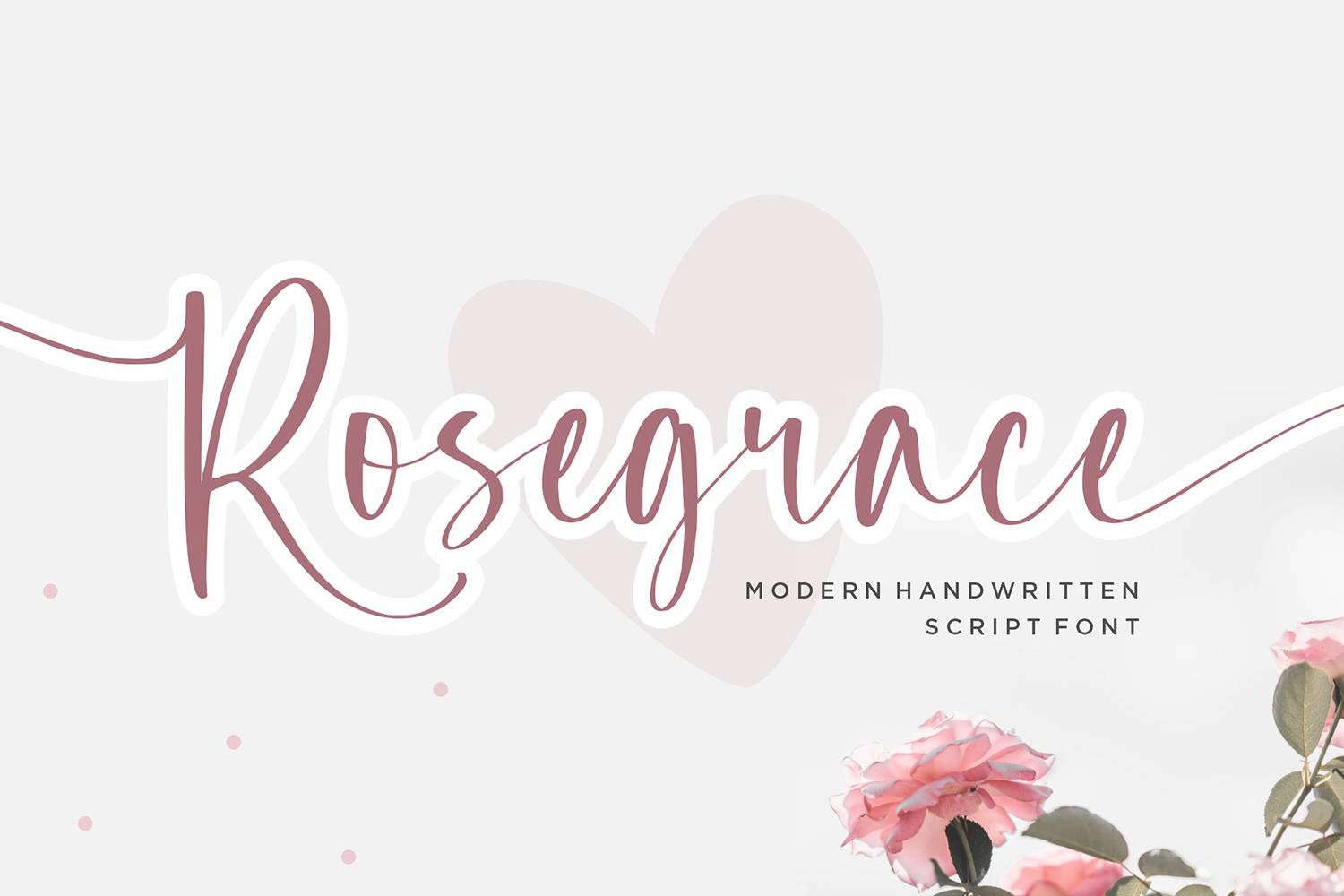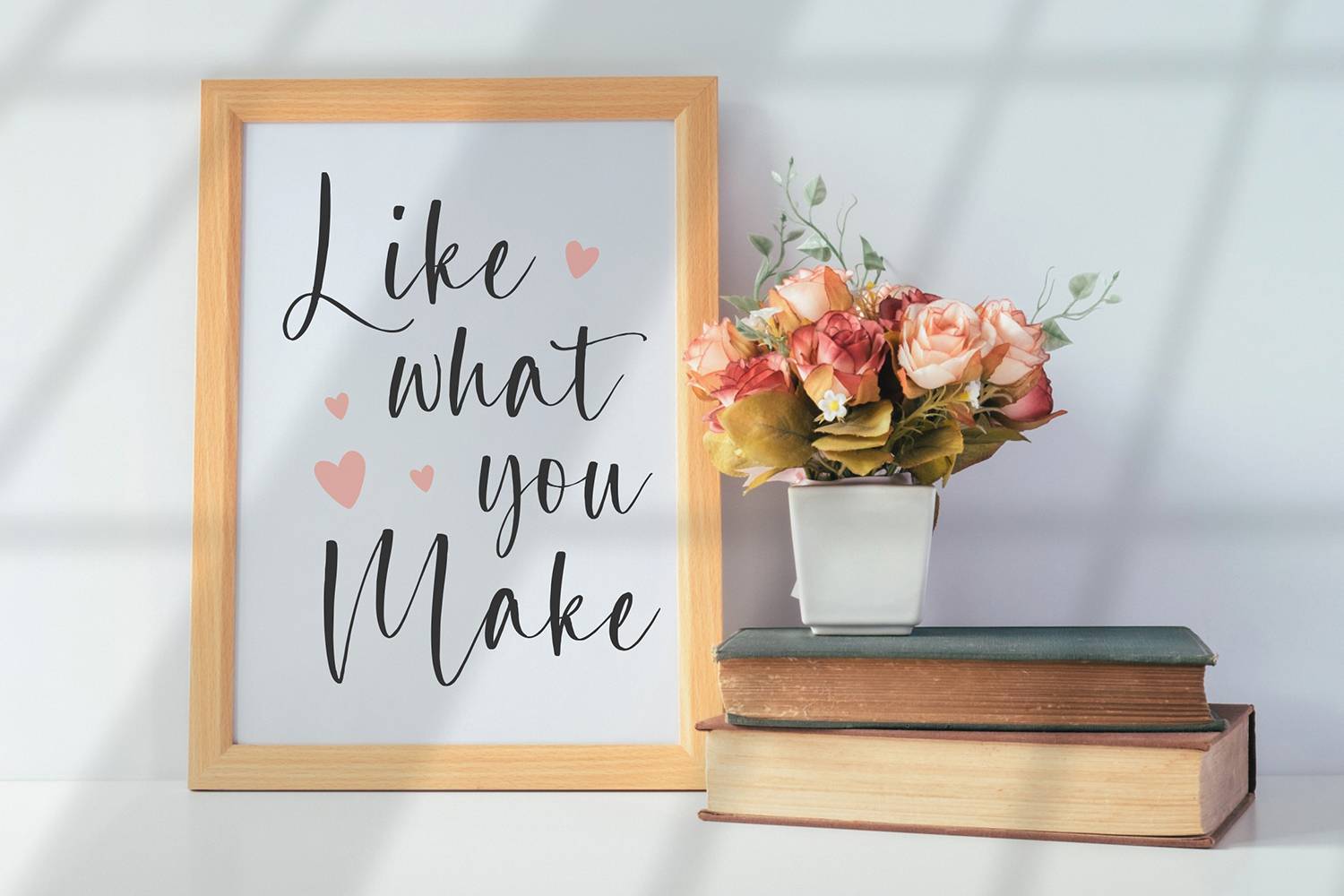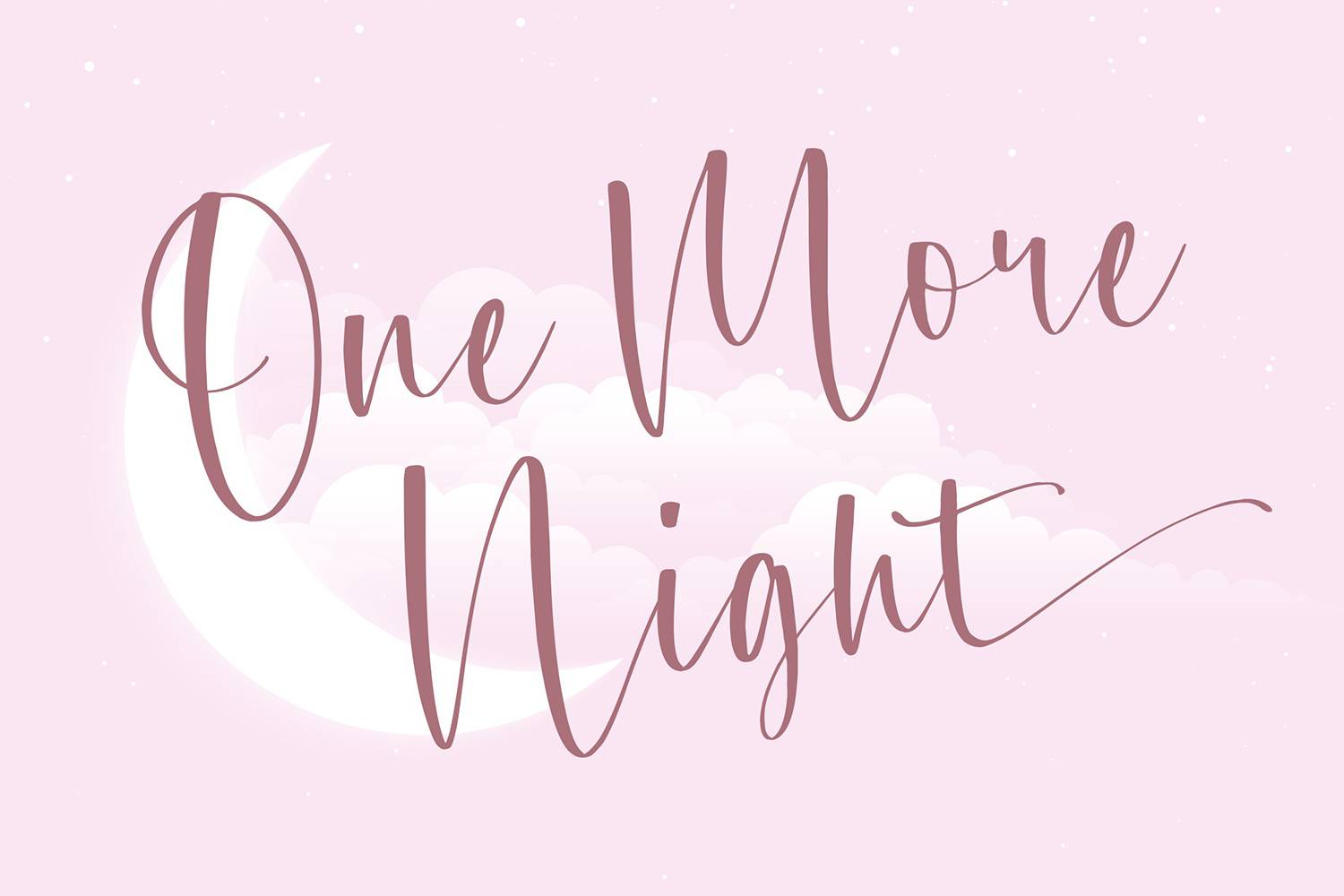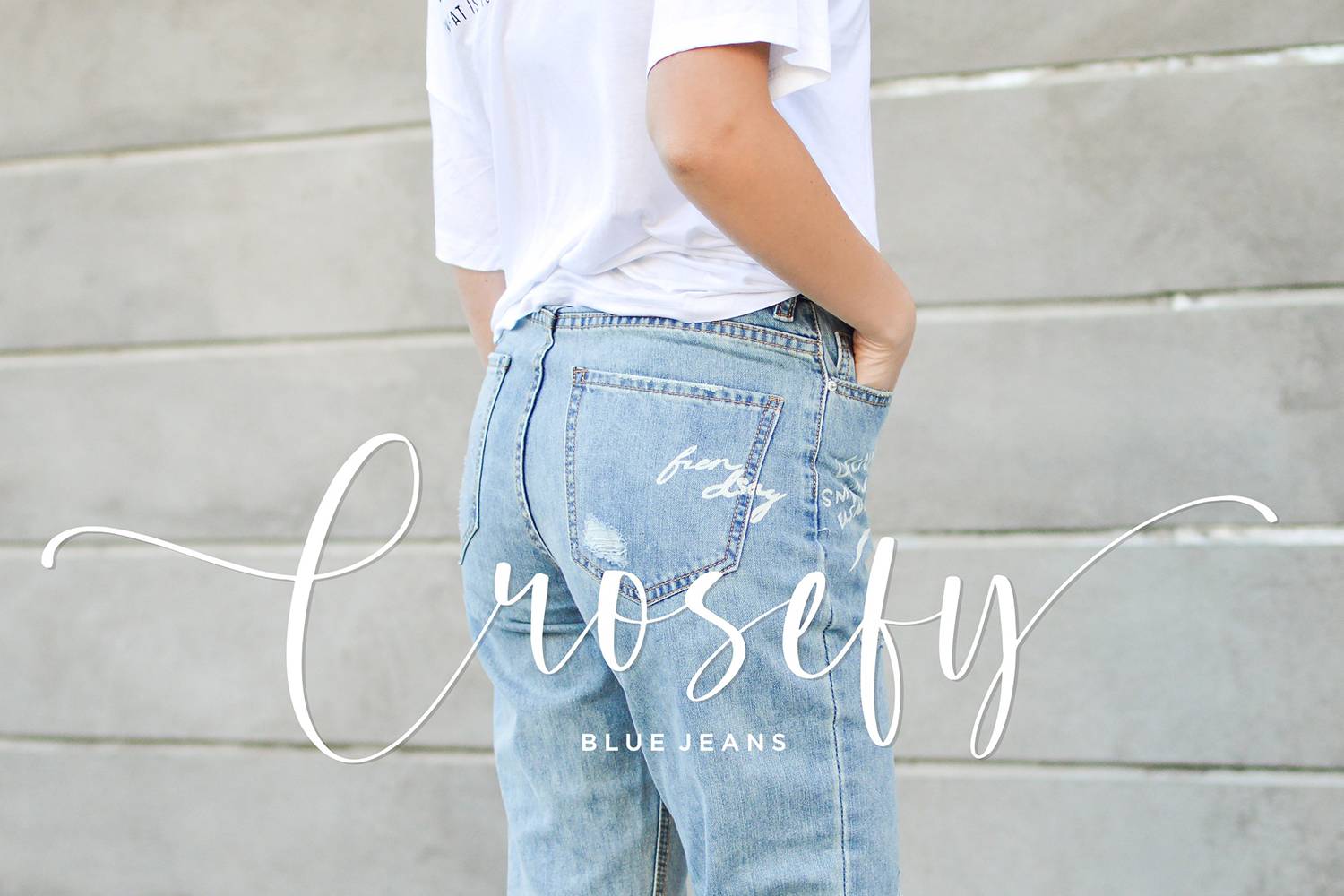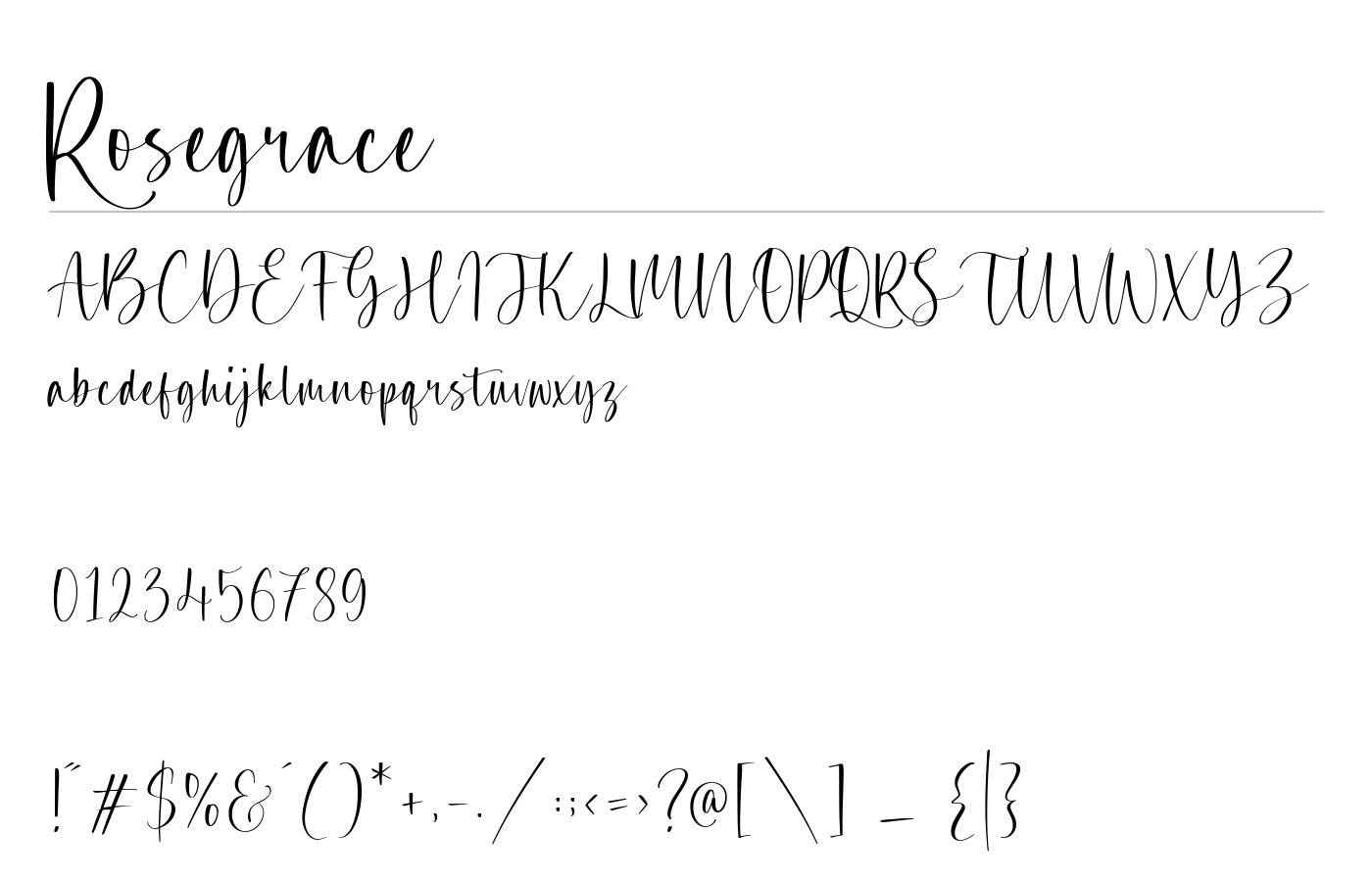
Rosegrace is an elegant, handwritten script font with a delicate and graceful feel, featuring thin, flowing strokes and charming swashes. Its slender letterforms and playful, yet refined style make it perfect for feminine branding, wedding invitations, or stylish editorial projects. The font’s soft personality and casual sophistication bring a warm, personal touch to any design needing a light and airy handwritten look.
Rosegrace Font
About Rosegrace Font